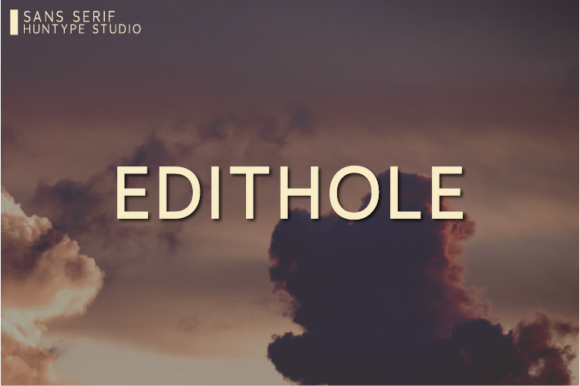
Introduce Your Designs to the World with Edithole: The Quintessential Sans-serif Font
In the realm of typography, where letters dance and meaning takes shape, Edithole emerges as a virtuoso of the sans-serif genre, a font that captivates with its minimalist allure and boundless versatility. Its clean lines and unassuming presence lend an air of sophistication to any design, making it a universal favorite that transcends the boundaries of occasion or style.
With Edithole as your creative companion, your words will leap off the page, commanding attention with their clarity and poise. Whether you're crafting a sleek website, designing an eye-catching logo, or creating marketing materials that demand attention, Edithole stands ready to elevate your designs to new heights of elegance and professionalism.
Edithole: A Versatile Masterpiece for Every Creative Vision
Edithole's adaptability knows no bounds, making it the perfect choice for a myriad of design projects. Its inherent versatility allows it to seamlessly blend into any aesthetic, from the crisp minimalism of modern websites to the timeless charm of vintage-inspired designs.
Infuse your website with a touch of sophistication, ensuring that your content is presented with the clarity and impact it deserves. Edithole's clean lines and legible forms guide the reader's eye effortlessly through your prose, leaving a lasting impression of professionalism and attention to detail.
Craft a logo that exudes timeless appeal, a visual representation of your brand that resonates with customers and sets you apart from the competition. Edithole's understated elegance lends itself perfectly to creating logos that exude authority, trustworthiness, and a hint of understated luxury.
Unleash your creativity in marketing materials that demand attention, leaving a lasting impression on potential customers. Whether you're designing brochures, flyers, or social media graphics, Edithole empowers you to communicate your message with impact and clarity.
Edithole: Your Creative Ally in the Digital Age
In the ever-evolving landscape of digital design, Edithole emerges as an invaluable asset, a font that empowers you to create stunning visuals that connect with your audience. Its adaptability, ease of use, and timeless appeal make it an essential tool for any designer seeking to make a lasting impact.
Embrace Edithole today and embark on a creative journey that knows no limits. Let your designs shine with a newfound elegance, clarity, and impact.